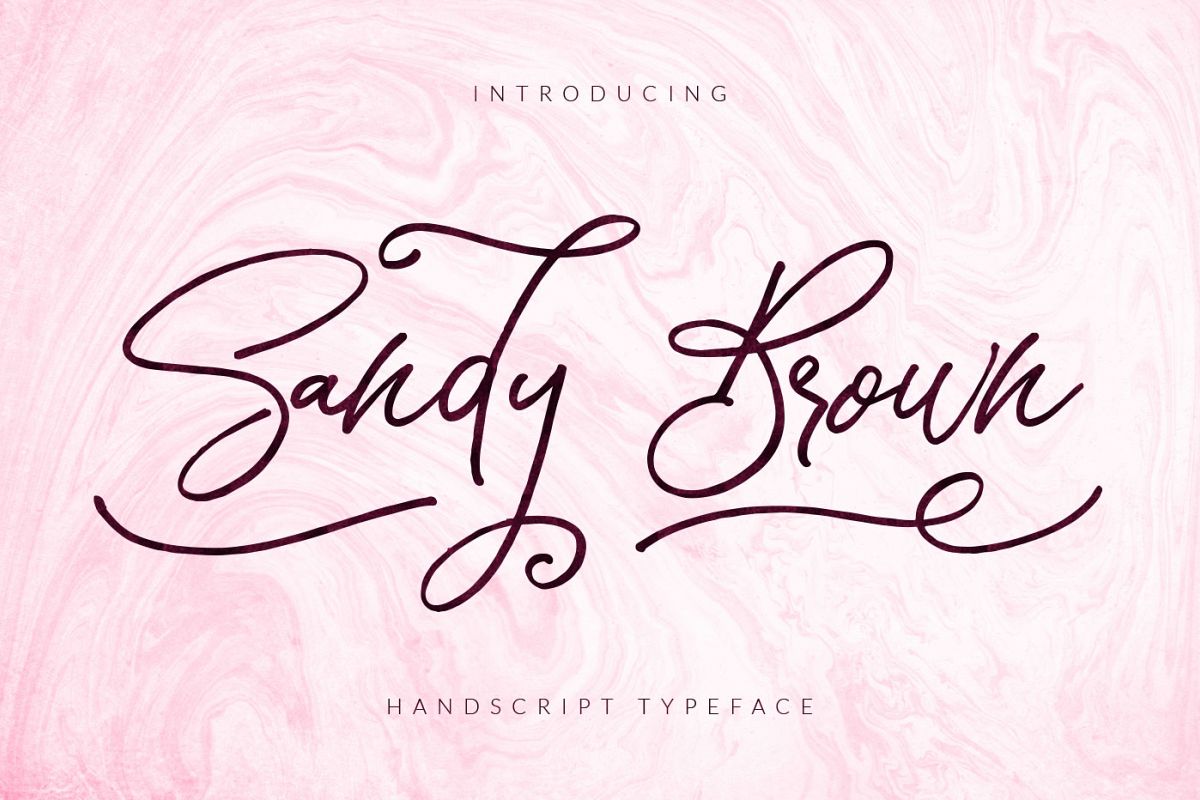
Sandy Brown
About Sandy Brown
Let me introduce Sandy Brown font to you. It is a font you can create awesome things with it. No matter you are working on a invitation or special card, Sandy Brown will be with you :-)
** GREAT FOR **
• Glass designs
• Business card projects
• Tshirt designs
• Messages for special days
• Characteristic company logos
• Blog pages
• Logo of brands
• Projects you need to utilize a premium font
• The projects that require a font including lots of alternates
• Numbers and Symbols
• Alternate Characters
• Swashes